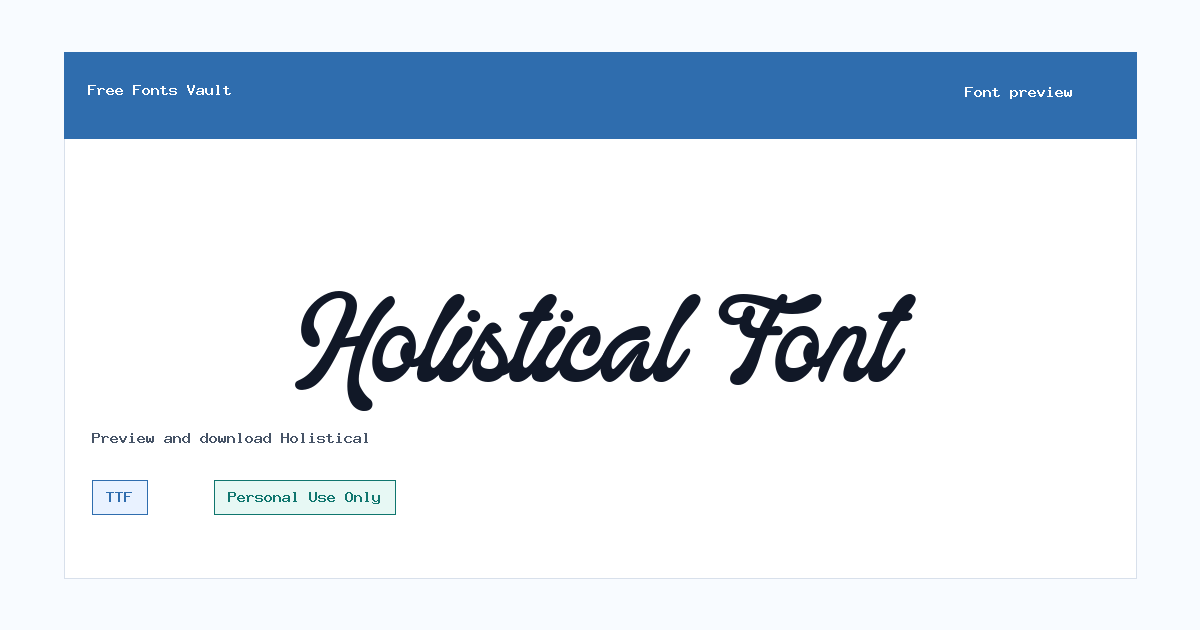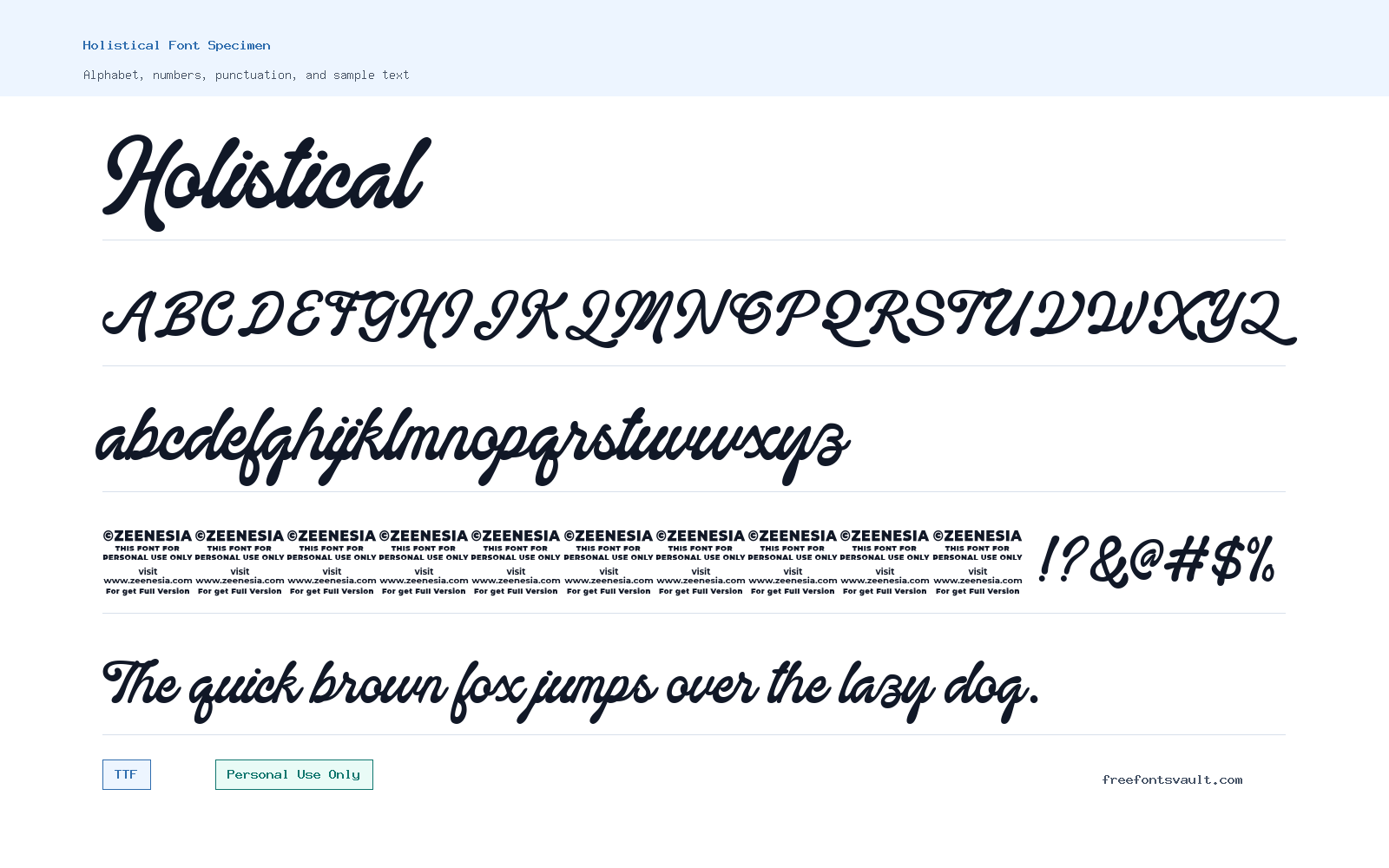
Holistical
- Designer Doni Purwoko
Holistical is a handwritten script font with a casual, connected look. It is best suited to short pieces of text where you want a personal, decorative style rather than a plain reading font.
About Holistical Font
Holistical has the feel of hand-lettered script, with flowing strokes that work well when the words have room to breathe. Because it is a script style, it is strongest in names, headings, quotes, invitations, labels, and other display settings. It is not the best choice for long paragraphs, small captions, or dense interface text, where the connected letterforms may become harder to read.
- Handwritten script style with connected, decorative letterforms
- Invitations, greeting cards, quotes, signatures, and short display headings
- Personal projects that need a soft handwritten accent, such as labels, mockups, social graphics, or printable designs
What type of font is Holistical?
Holistical is a handwritten script font. It is more suitable for decorative short text than for long reading passages.
Who designed Holistical?
The designer is listed as Doni Purwoko.